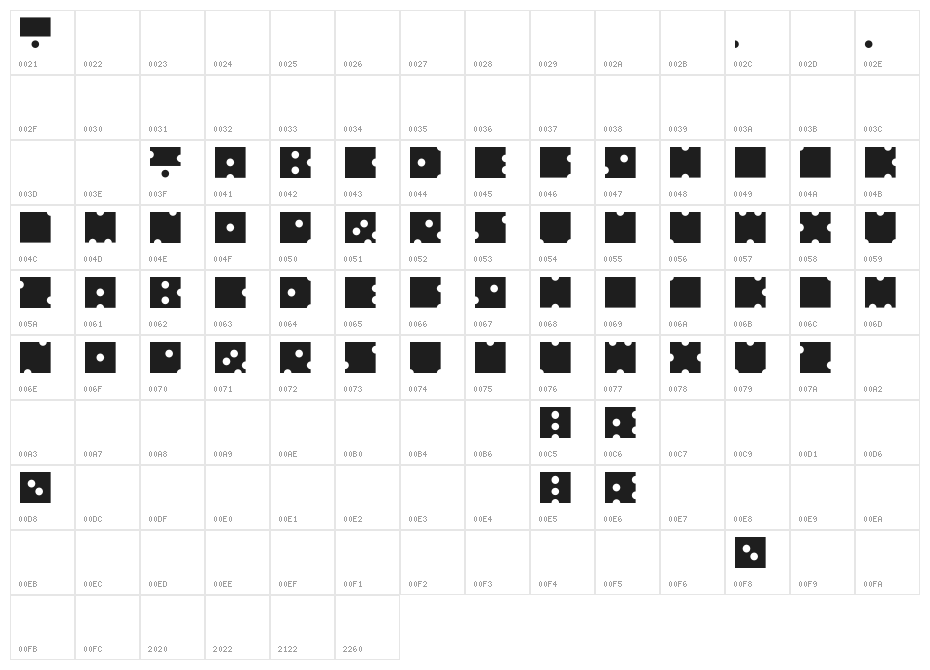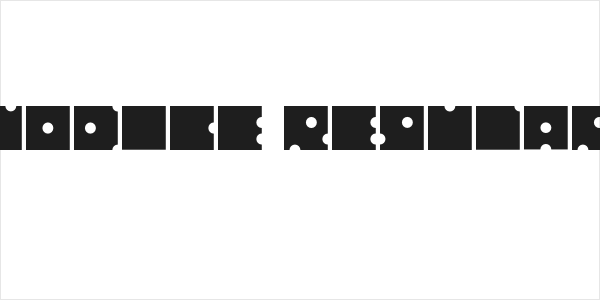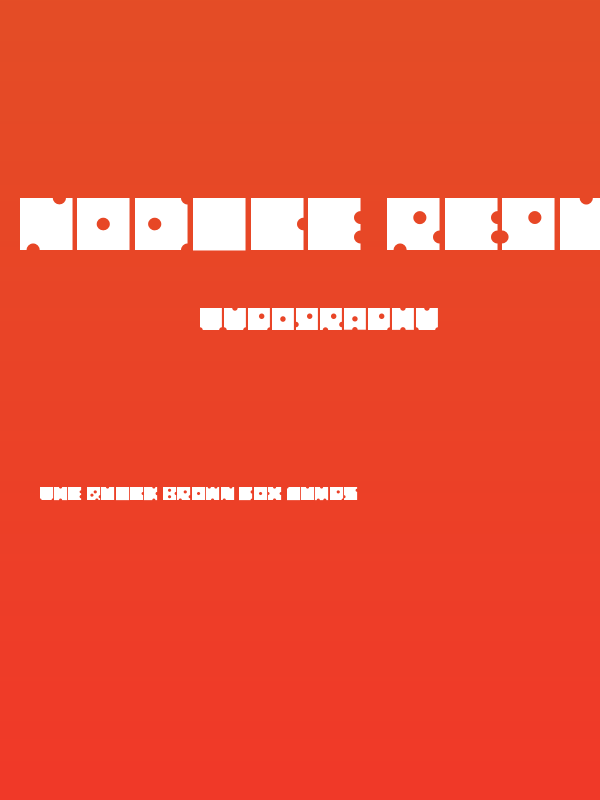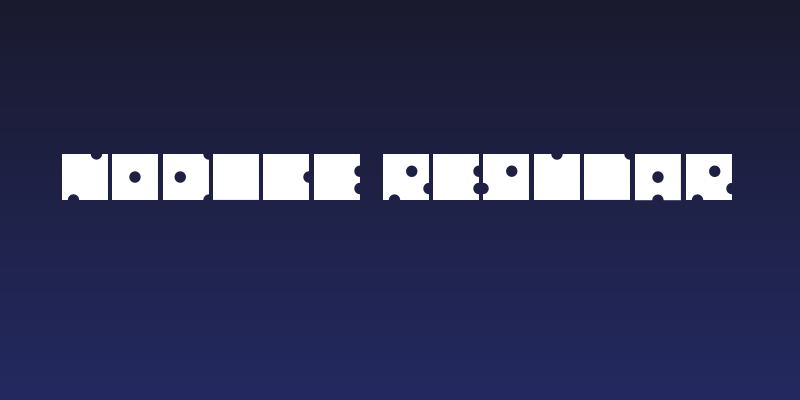
NoDice-Regular Font
NoDice-Regular Description
This font features a bold, geometric design with a unique, blocky appearance. Each character is composed of solid, rectangular shapes with rounded corners and circular cutouts, giving it a playful and modern look. The uniformity and consistency across letters and numbers create a cohesive visual style. The font's distinctiveness lies in its puzzle-like structure, where each character appears to fit together seamlessly, reminiscent of a jigsaw puzzle. This design choice makes it highly decorative and eye-catching, suitable for creative and unconventional projects.
| Use Case | Logos, Posters, Creative Branding |
| Proposed Projects | Ideal for posters, logos, and branding projects that require a modern and playful aesthetic. |